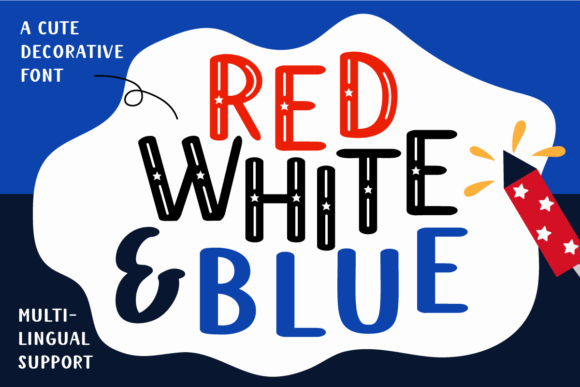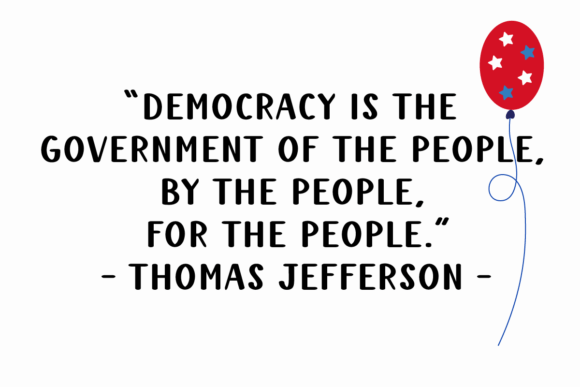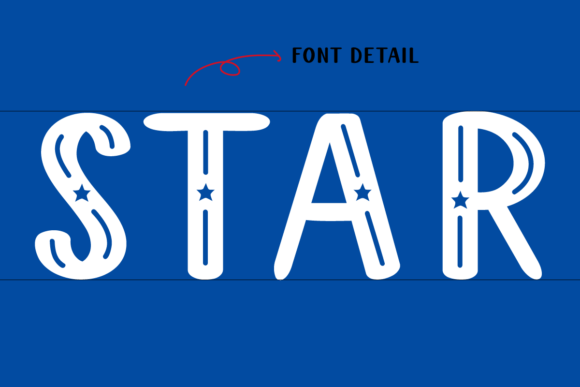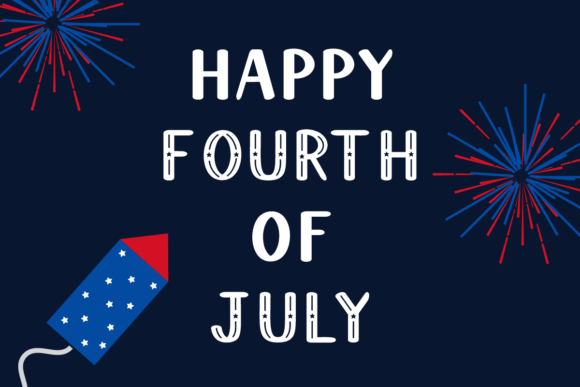
Red White and Blue Font
About the Red White and Blue Font
Meet Red White and Blue Font, a stunning font that brings a touch of elegance and professionalism to any design. RED WHITE AND BLUE is a cute Decorative font with star details. Perfect for projects that celebrate American history or events such as Independence Day, Veterans Day, or Memorial Day. Creating shirts, designs, invitation cards, mugs, stickers, playful quotes, creating posters, logos, greeting cards, packaging, decorating the illustration and so much more!
RED WHITE AND BLUE’s playful, patriotic style makes it ideal for headlines, short text blocks on posters and packaging, and branding elements requiring a celebratory feel. It excels in applications where the focus is on visual impact rather than readability. Avoid using it for body text or UI elements where legibility is paramount.
Consider pairing it with a clean sans-serif like Open Sans for a balanced contrast, or a more traditional serif like Garamond for a sophisticated juxtaposition. For a more playful approach, a rounded sans-serif like Montserrat would work well. The font’s overall personality is best described as cheerful and celebratory, suitable for brands associated with American values or festive occasions.
This font’s decorative nature limits its versatility. It’s less suitable for corporate settings or projects requiring a sleek, minimalist aesthetic.
Red White and Blue Font Usage Examples
Red White and Blue Font Example